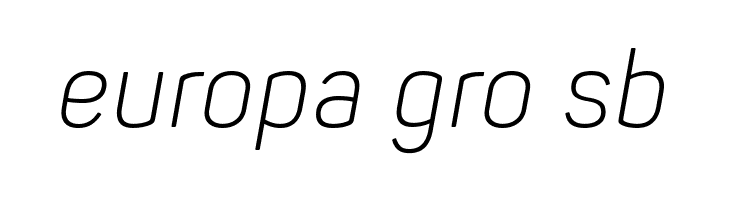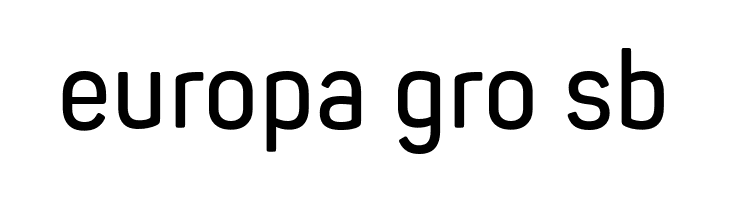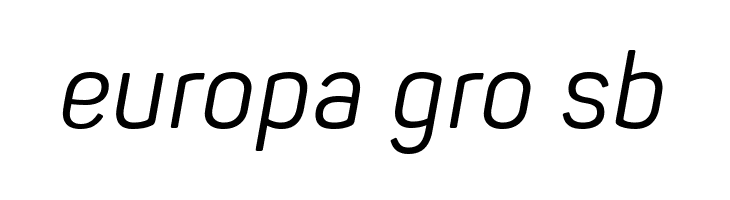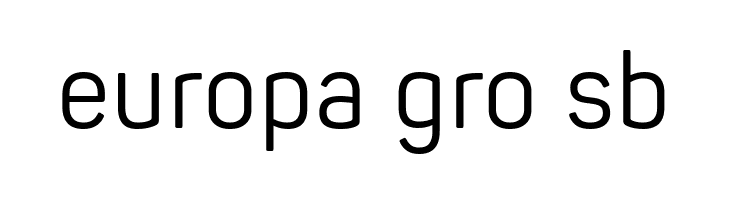
A sleek, modern font with a narrow, light structure and tight spacing.
A sleek, narrow, extra light italic font with a modern and elegant style.
A bold, modern font with a narrow design, perfect for impactful headlines.
A bold, narrow, and italicized modern font with strong visual impact.
A modern, narrow sans-serif font with a light weight and low contrast.
A sleek, narrow, and light italic font with a modern and elegant style.
A modern, narrow sans-serif font with a clean and professional look.
A modern, narrow, and italic font with a sleek design.
A modern, narrow sans-serif font with a semi-bold weight.
A modern, narrow, semi-bold italic font with a sleek and dynamic style.